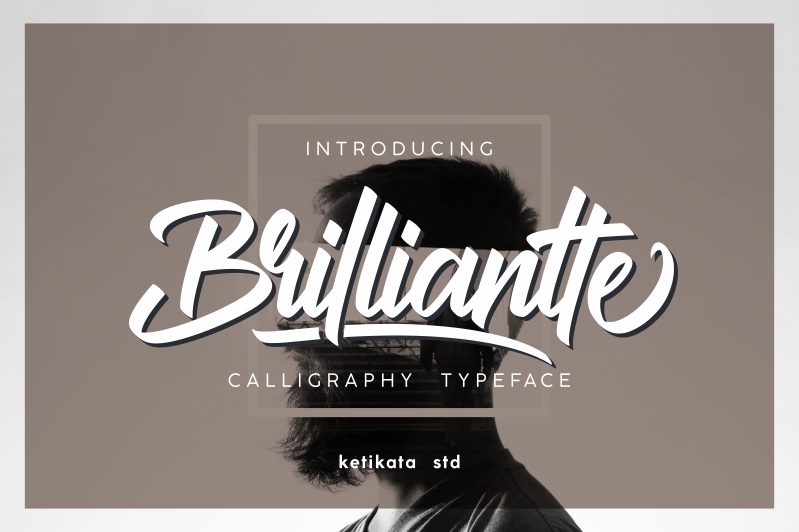
Free Brilliantte Font
Featuring the unforgettable brilliante font - free download. Dafont has featured this amazing and beautiful font. Showcase your designs like a graphic design pro by adding a new touch with this fancy font.